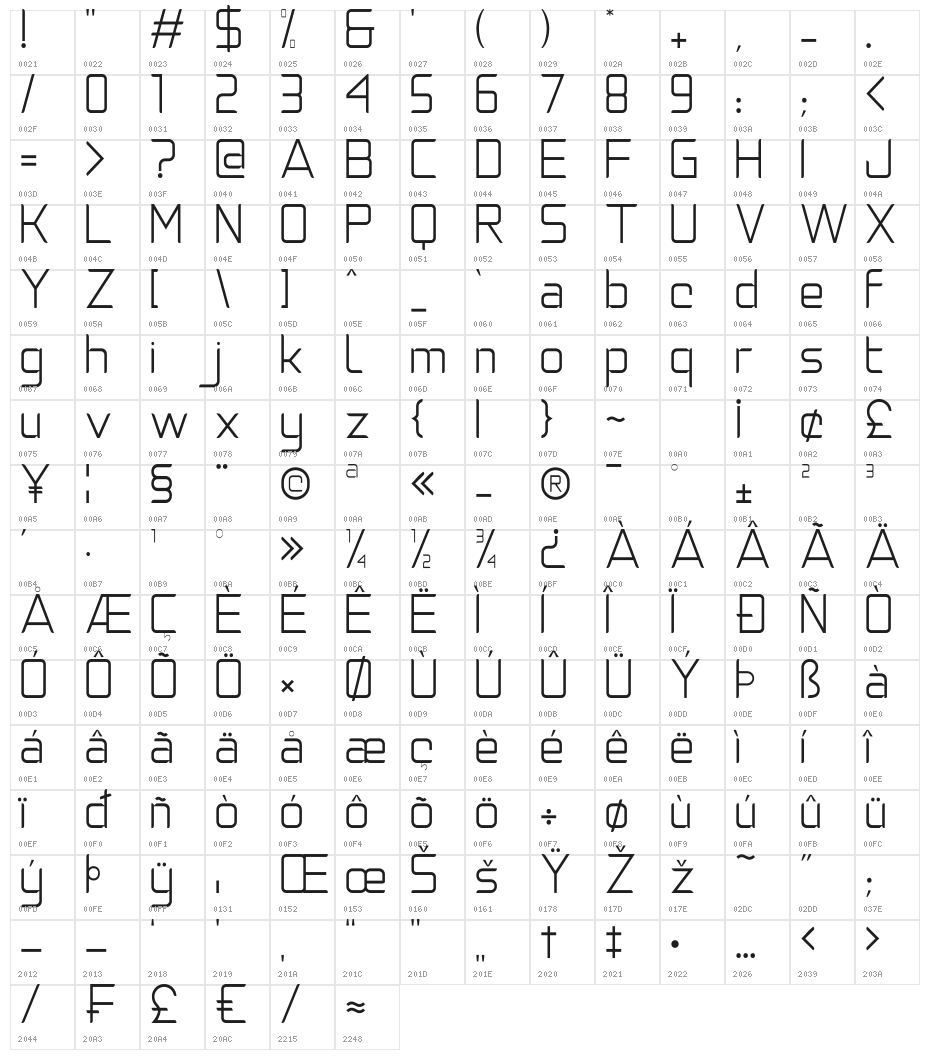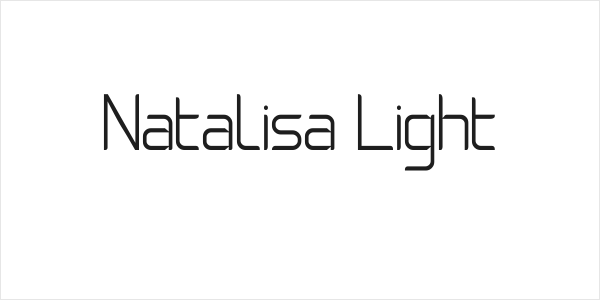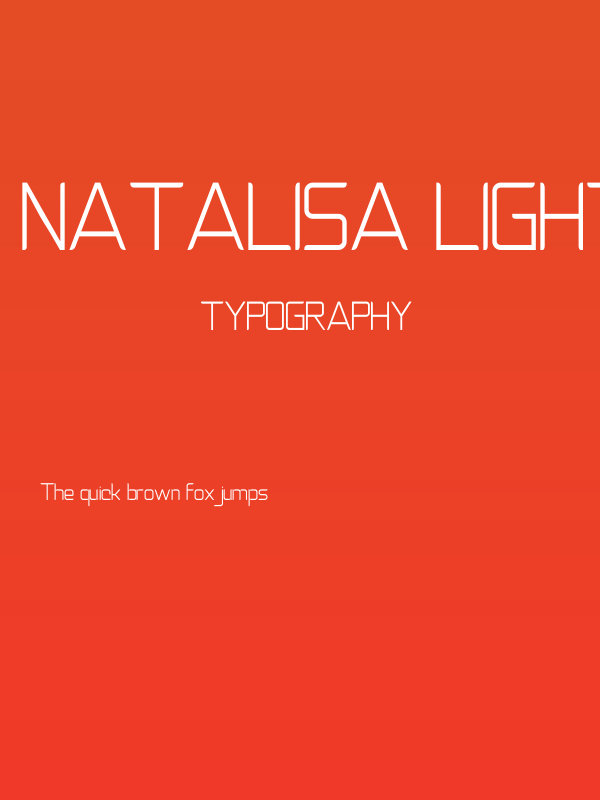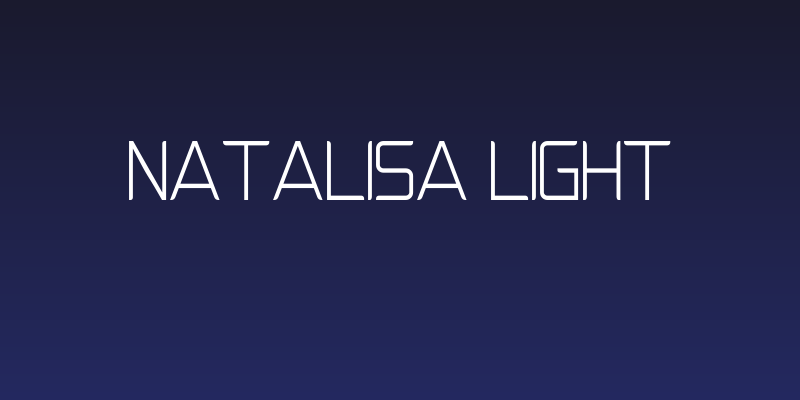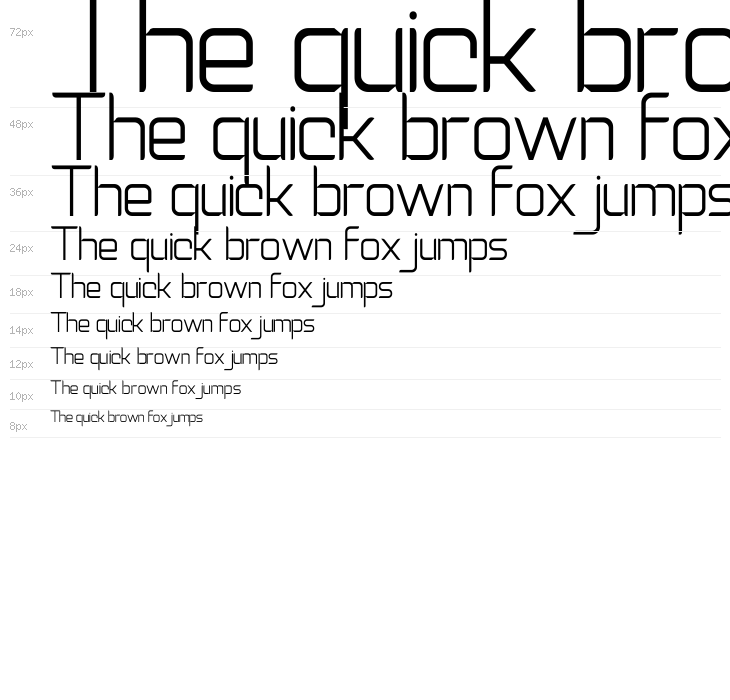
Natalisa Light Font
Natalisa Light Description
This font features a sleek and modern design with clean, geometric lines. The characters are uniformly structured, offering a sense of balance and harmony. The uppercase letters are tall and narrow, while the lowercase letters maintain a consistent height, creating a cohesive look. The numerals are distinct and easy to read, with a contemporary flair. Special characters are designed with the same attention to detail, ensuring they blend seamlessly with the rest of the typeface. Overall, this font exudes a minimalist aesthetic, making it suitable for a variety of design applications.
Natalisa
| Use Case | Headlines, Logos, Digital interfaces |
| Proposed Projects | Ideal for modern branding, tech-related designs, minimalist posters, and digital interfaces. |